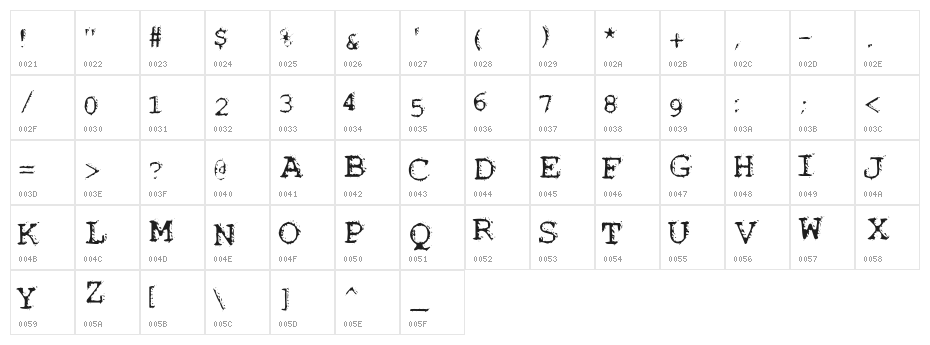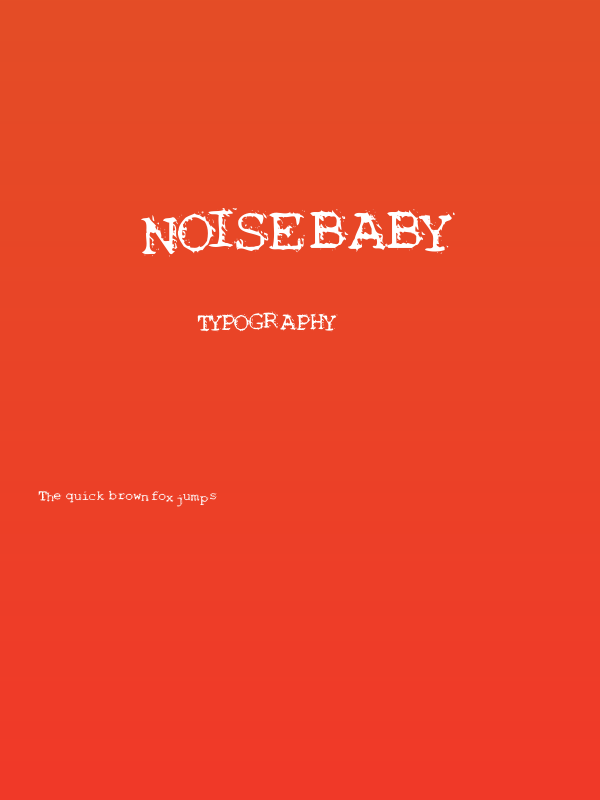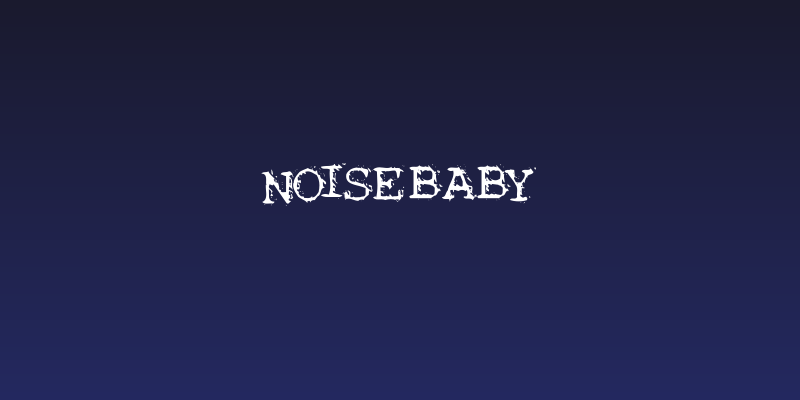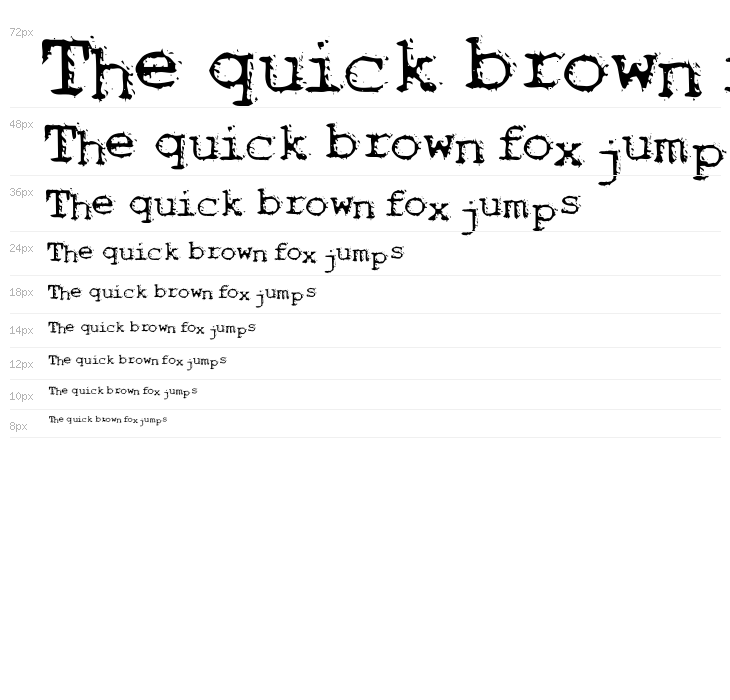
Noisebaby Font
Noisebaby Description
This font features a distressed and grungy aesthetic, characterized by rough edges and a textured appearance that mimics wear and tear. The uppercase and lowercase letters maintain a consistent style, with each character appearing as if it has been eroded or splattered with ink. Numbers and special characters follow the same design, adding to the overall chaotic and artistic feel. The font's unique style makes it stand out, ideal for projects that require a bold and unconventional look.
| Overall Style | Grunge, Artistic |
| Proposed Projects | Ideal for album covers, posters, street art designs, and any creative project needing a bold, edgy look. |